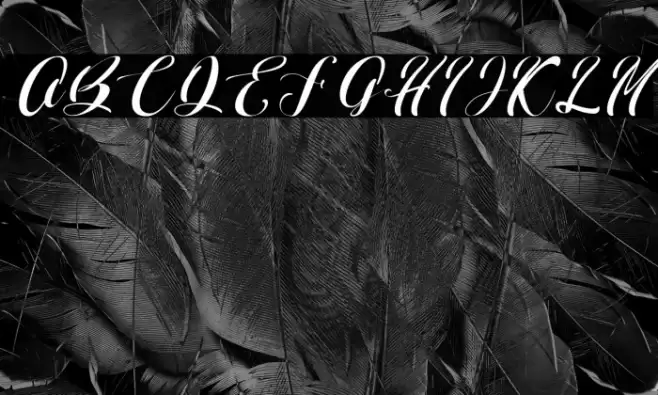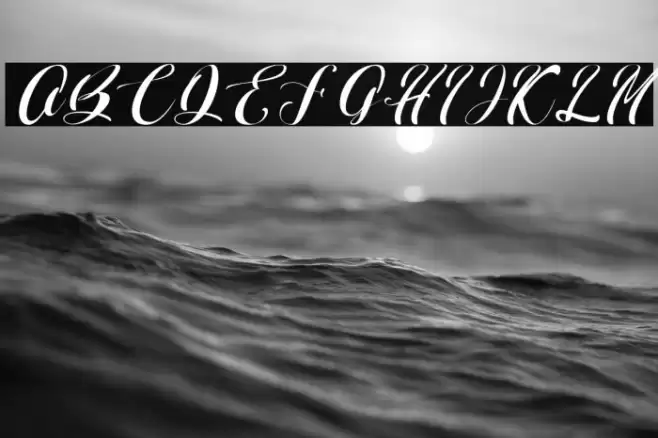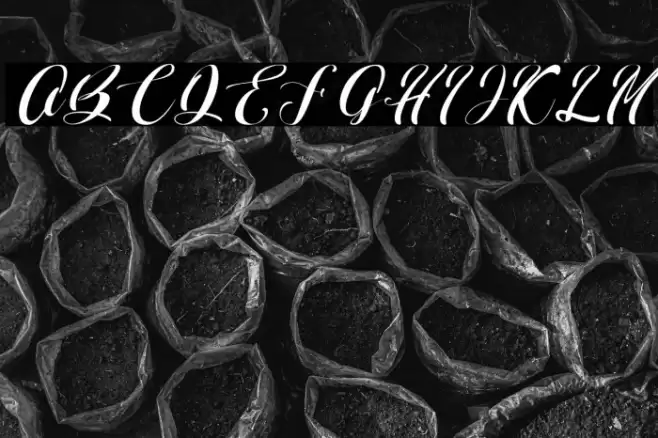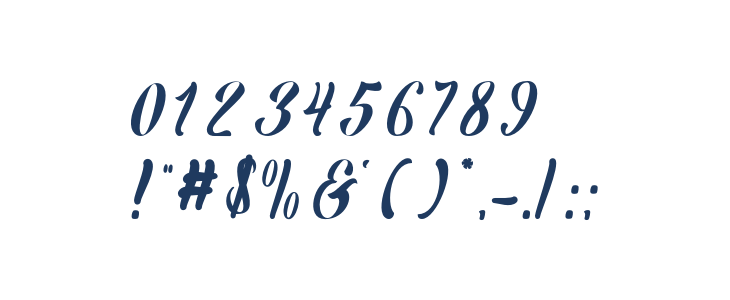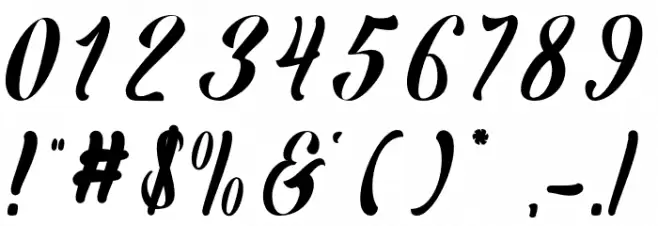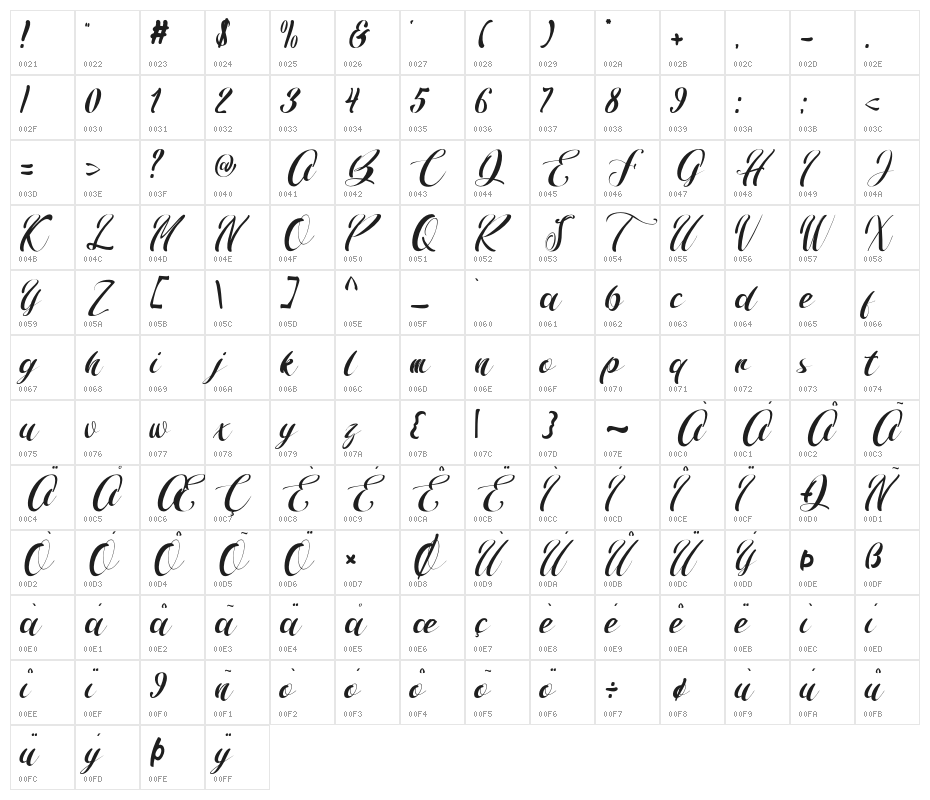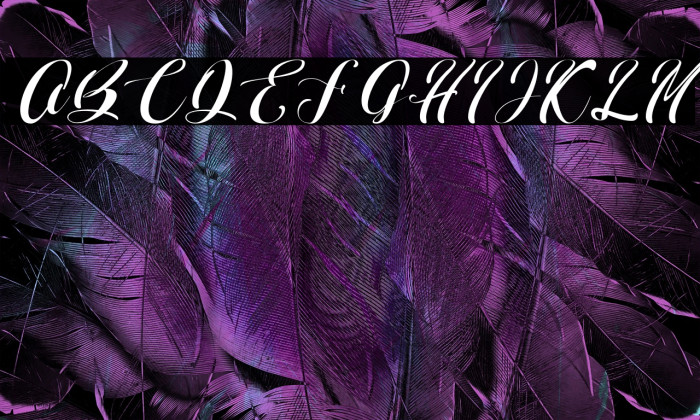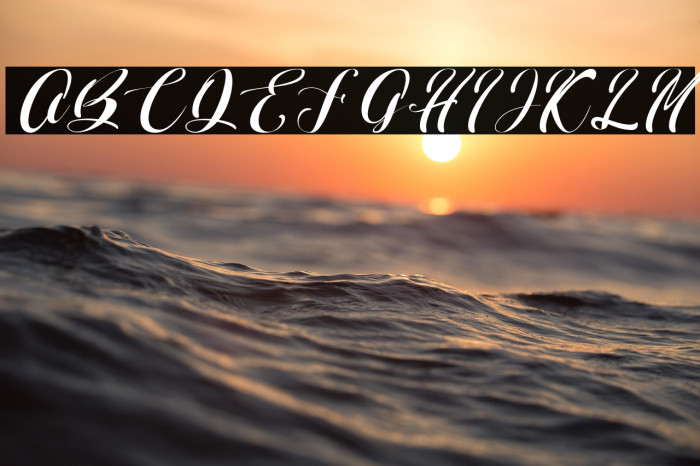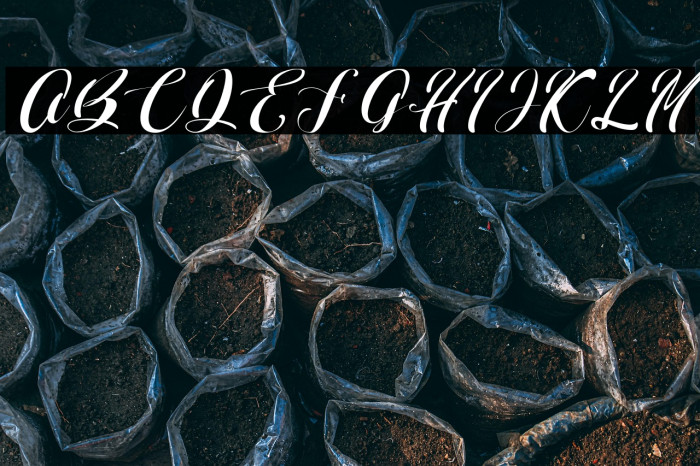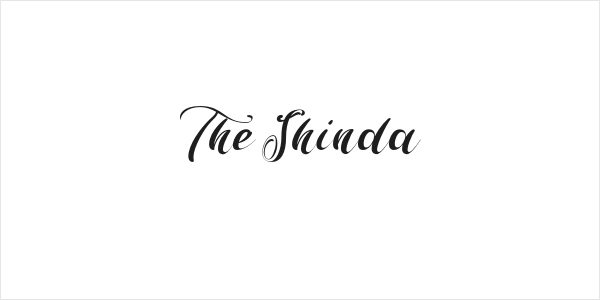
TheShinda Font
This elegant script font features flowing, interconnected letters with a calligraphic style. The uppercase letters are ornate and feature dramatic flourishes, while the lowercase letters maintain a consistent, smooth flow. The numerals are designed with a similar flair, ensuring a cohesive look across all characters. The special characters complement the overall aesthetic, making this font suitable for decorative purposes. Its high contrast between thick and thin strokes adds to its sophisticated appearance, making it ideal for projects that require a touch of elegance and refinement.
An elegant script font with flowing, interconnected letters and high contrast strokes from Uncategorized fonts.
- Font: TheShinda
- Proposed Projects: Ideal for wedding invitations, elegant branding, greeting cards, and luxury product packaging.
- Overall Style: Elegant, Decorative
- Use Case: Logos, Invitations, Decorative Text